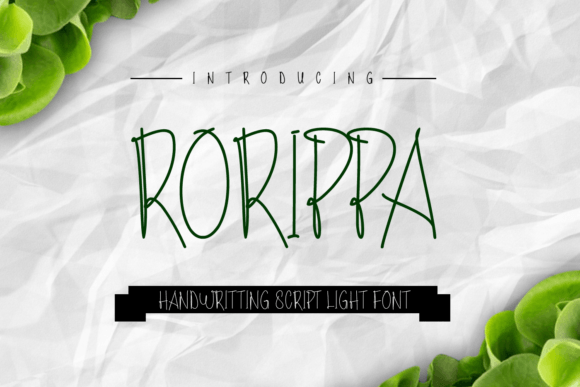
Prepare yourself to be captivated by the enchanting Rorippa Font, an exquisite script that will elevate your creations to new heights of elegance.
Indiesign.std, the mastermind behind this masterpiece, has meticulously crafted each letter with the utmost care, resulting in a font that exudes both sophistication and playfulness.
Whether you're gracing gift cards with heartfelt messages, adding a touch of whimsy to greeting cards, or crafting logos that leave an unforgettable impression, Rorippa is your go-to font for captivating designs.
Imagine your business cards adorned with the graceful strokes of Rorippa, making a statement that speaks volumes about your brand's impeccable taste. Let your posters and banners come alive with its vibrant energy, capturing the attention of all who behold them.
From eye-catching flyers to stunning social media posts, Rorippa's versatility knows no bounds. Its ability to effortlessly complement any design style makes it a true gem for creators of all kinds.
So, why settle for ordinary when you can have extraordinary? Embrace Rorippa and unlock a world of limitless creative possibilities. Let its enchanting charm ignite your imagination and transform your designs into works of art that captivate and inspire.